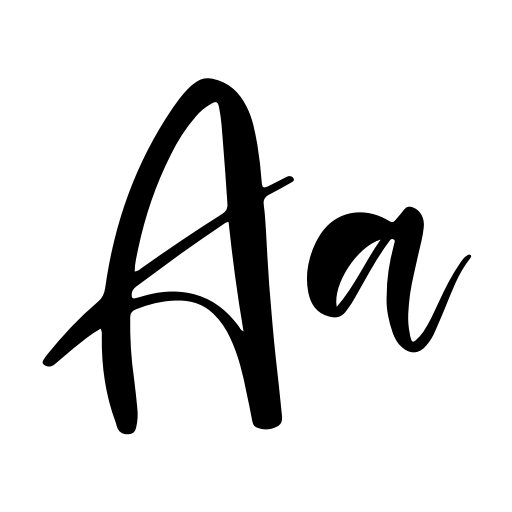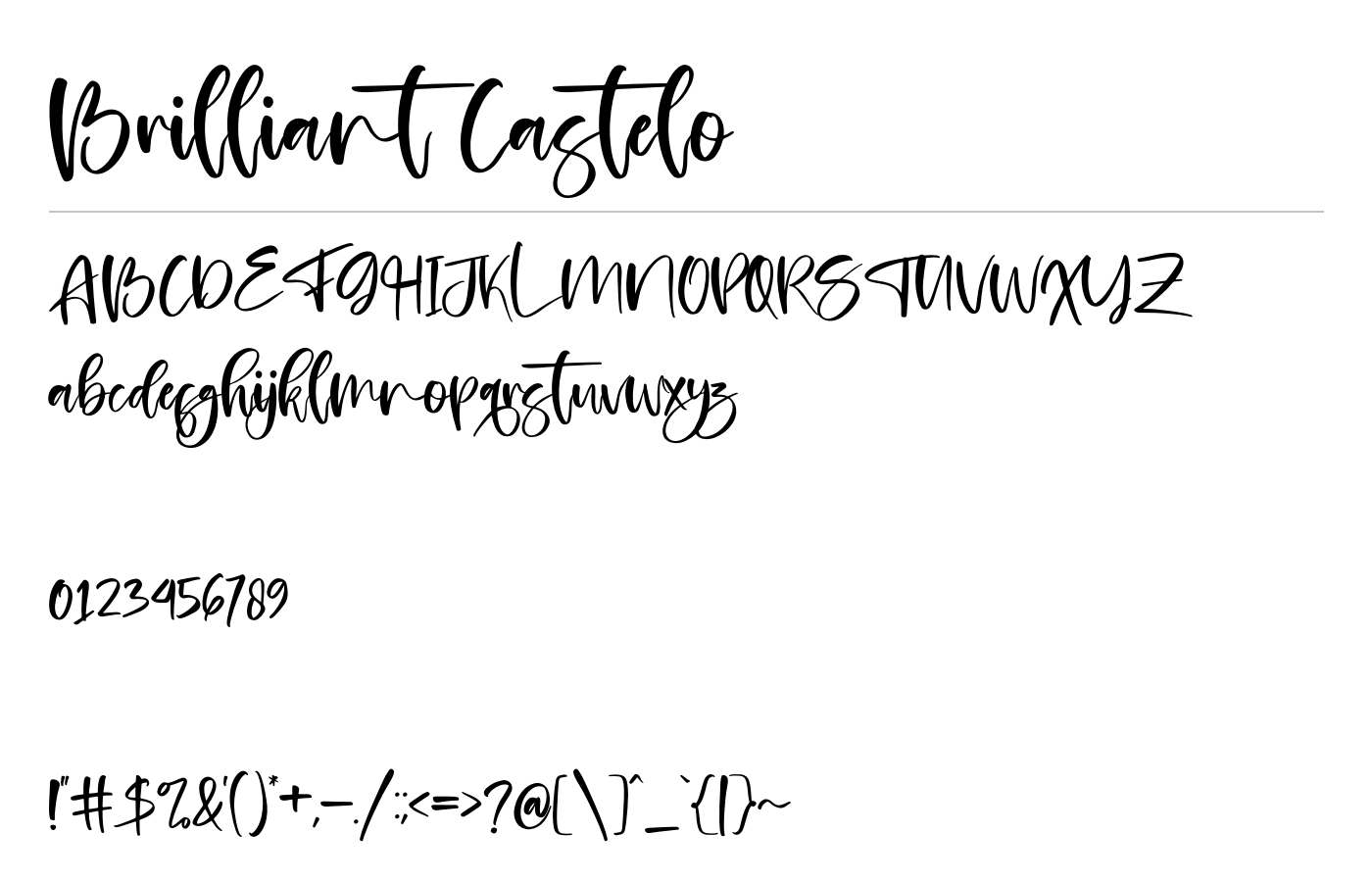
Brilliant Castelo is a lively and elegant script font with a handwritten feel, featuring fluid, expressive strokes and generous letter spacing that create a natural, casual charm. Its varying stroke widths and playful letterforms make it ideal for adding a personal, artistic touch to invitations, branding, and social media graphics. This font works well when you want to convey creativity, warmth, and sophistication in a modern, approachable style.
Brilliant Castelo Font
About Brilliant Castelo Font